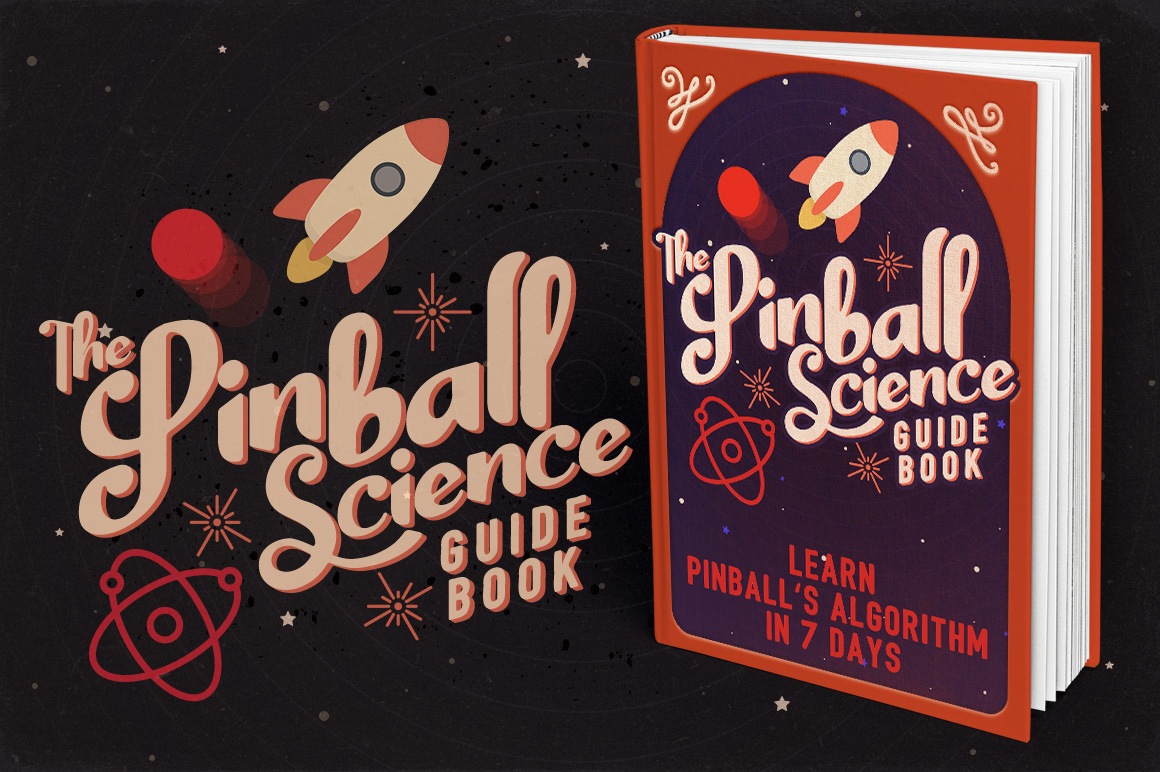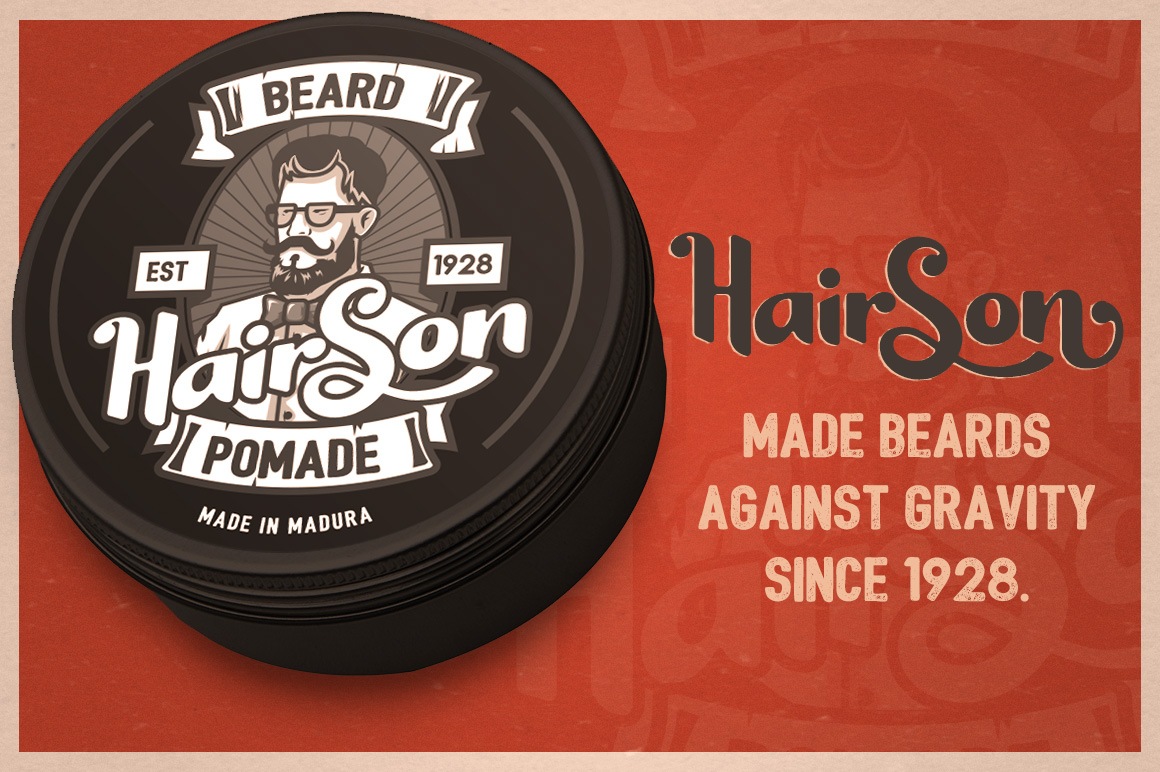
Harson Free Font
Harson Free Font comes with uppercase, lowercase, numerals, punctuations, currency symbols and many variations on each character include OpenType alternates and common ligatures. Also supported with Contextual Alternate so the alternate characters will be generated automatically on every final character when typing a word. Harson Free Font perfect to be used for Logotype, Letterhead, Poster, Apparel Design, Label and etc. This free typeface was designed by a talented Staircase Studio. If you like it don’t forget to check out the full version.